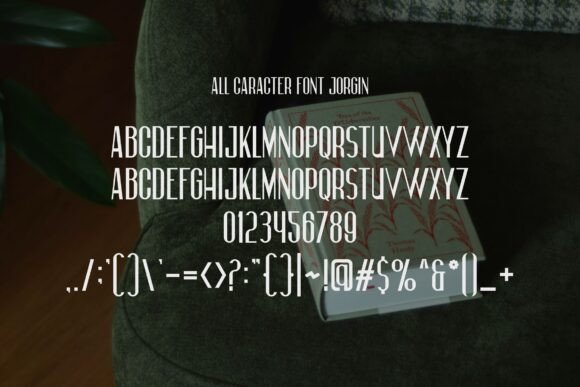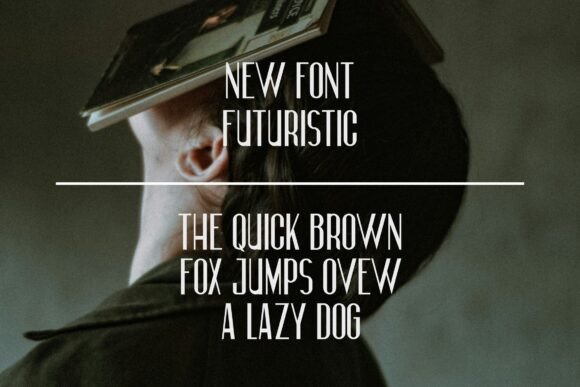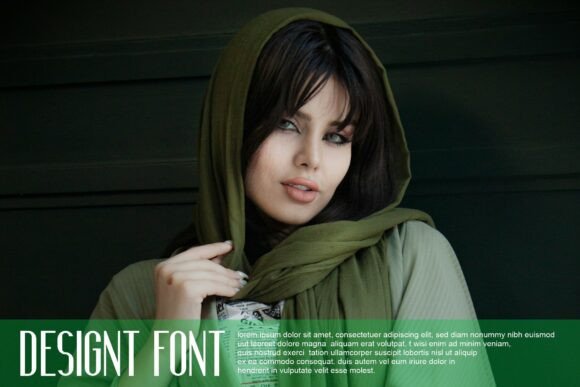
Introduction to Jorgin Font
As designers, we’ve all been there – staring at a blank canvas, trying to spark that perfect idea for a creative project. But sometimes, it’s not the blank slate that needs inspiration, but the font itself. One of the most exciting moments in design is discovering a font that elevates your entire project, and that’s exactly what the Jorgin Font does.
With its sleek, high-impact sans serif design, Jorgin Font is the perfect addition to any design resource. Its tall, condensed letterforms and geometric precision bring a level of sophistication to your designs that’s hard to match. Whether you’re working on a fashion branding project or creating a promotional poster, Jorgin Font commands attention while maintaining effortless elegance.
Key Features of Jorgin Font
- High-quality design resource suitable for various creative projects, including logos, titles, and headings.
- Designed with a high resolution, ensuring crisp and clear text rendering across various devices and screen sizes.
- Unique characteristics include a modern, sleek aesthetic and a versatile design that adapts well to different creative projects.
Honest Review: Jorgin Font
As a designer, I’m always on the lookout for high-quality fonts to elevate my creative projects. Recently, I stumbled upon the Jorgin Font, and I must say, it’s a great addition to my design resource library.
What works well: ✨ The Jorgin Font is incredibly versatile, with a clean and modern design that makes it perfect for a wide range of creative projects. I’ve used it for both digital and print projects, and it’s consistently delivered high-quality results. The font is also highly customizable, allowing me to easily adjust the style to fit my needs.
What doesn’t work well: ⚠️ While the Jorgin Font is a high-quality font, it does have some limitations. For example, the transparent background can sometimes be a bit tricky to work with, especially when trying to create complex designs. Additionally, the font can be a bit overused in certain industries, which may limit its appeal in those areas.
Overall impression: I’m thoroughly impressed with the Jorgin Font, and I would highly recommend it to any designer looking for a high-quality, versatile font. With its clean design and endless customization options, it’s a valuable addition to any design resource library.
Tips for Getting the Most Out of Jorgin Font
For optimal results, use Jorgin Font in combination with other high-quality design resources. Experiment with different font sizes, colors, and styles to achieve a unique look.
Can I customize the Jorgin Font to fit my specific design needs?
While the Jorgin Font is a high-quality design resource, it is not designed to be heavily customized. However, you can use font editing software like FontForge or Glyphs to make minor adjustments to the font’s appearance. Keep in mind that making significant changes to the font may affect its overall quality and compatibility with different systems.